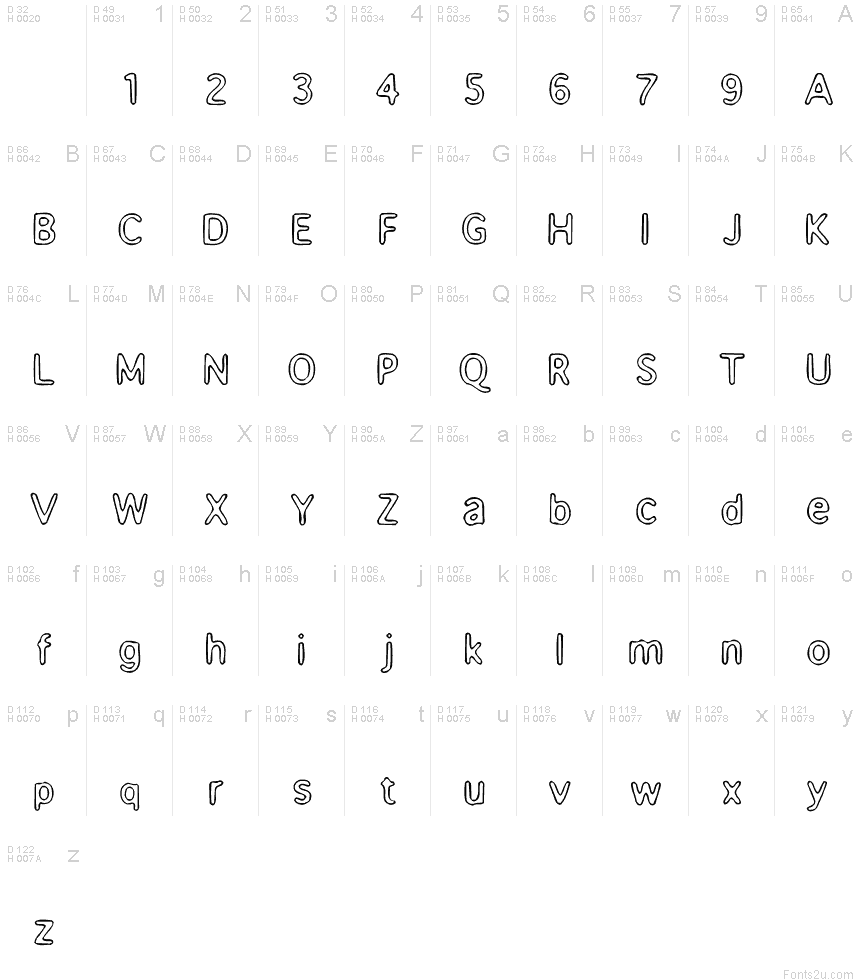
Enemafont
Enemafont font by Enemafont is a free outlined display typeface with a wobbly, hand-drawn charm. Its chunky bubble letters and inky black contour feel like they were traced with a thick marker, leaving a soft, squishy interior that begs to be filled with color or texture. The loose, slightly uneven rhythm keeps things lighthearted and informal, giving any layout an instant doodle-on-your-notebook energy.
Using Enemafont, your titles snap into focus on kids’ posters, party invitations, coloring pages, school projects, craft packaging, and playful social graphics. This free font shines when used large, letting the hollow shapes breathe and interact with the background. For body text or captions, pair it with a clean geometric sans to keep the message clear while Enemafont handles all the fun up top.